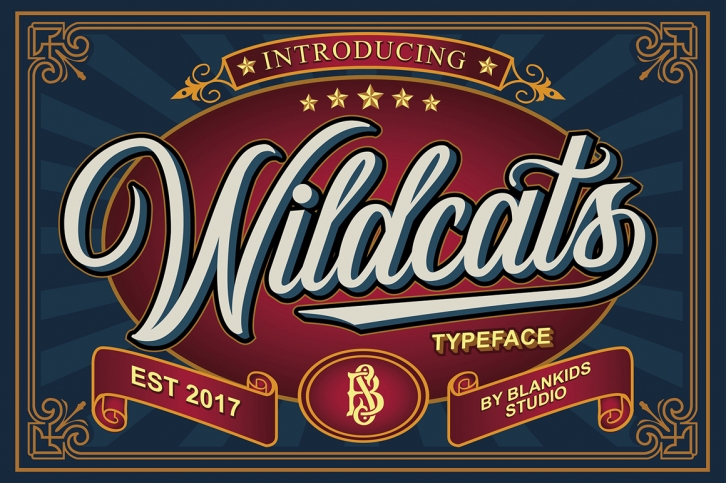
Wildcats Typeface (40% off) is a trendy and unique font with an authentic style. It was designed by Blankids and it's a great choice for creative people who need such a font. It was released on September 5, 2017 and the file size is 18.2 MB. Wildcats Typeface (40% off) will add an organic vibe to any design idea!